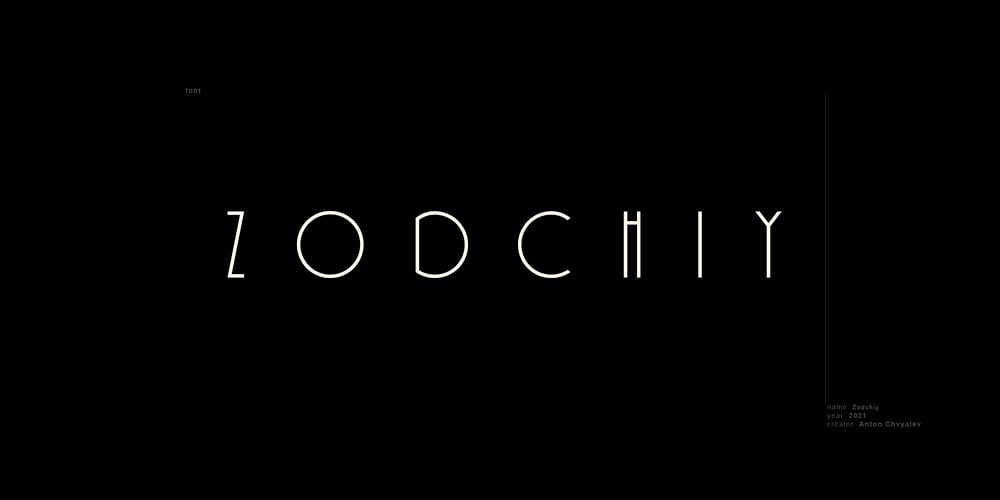
Zodchiy Font Family was designed by Anton Chvyalev and published by Chvyalev. Zodchiy contains 1 styles and family package options. Cyrillic (and Latin) poster font is limited in composition by uppercase. Monumental, dry, ascetic. Designed for the design of posters, title pages of projects, signage, book covers, building facades. It is formed based on architectural and drawing fonts. It combines Russian traditions and modern trends. The shape of the letters varies from round wide to oblong narrow, in this contrast lies the idea of the font. At first glance, this contradictory decision finds harmony with closer acquaintance.